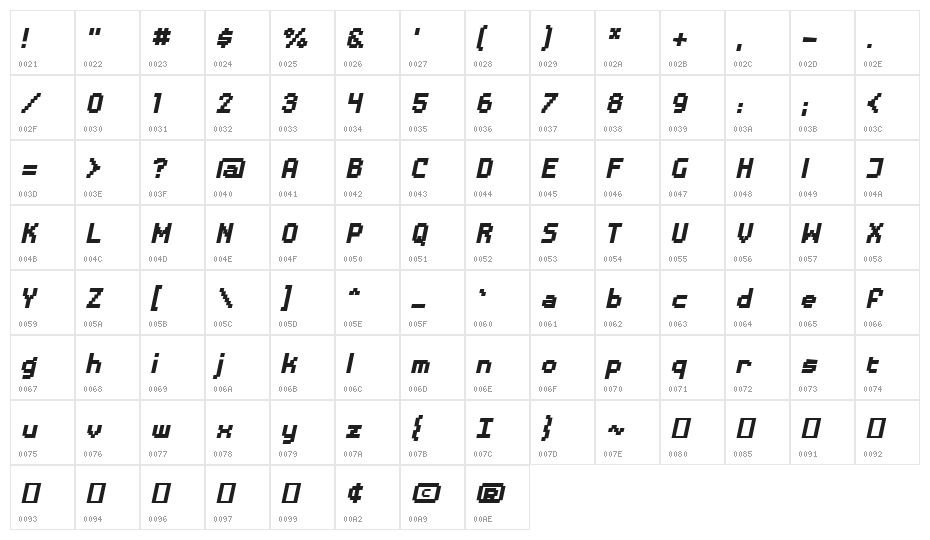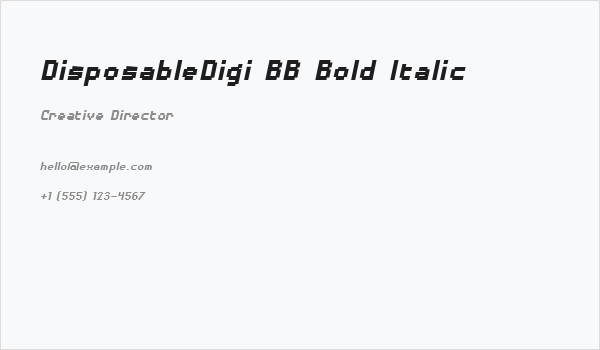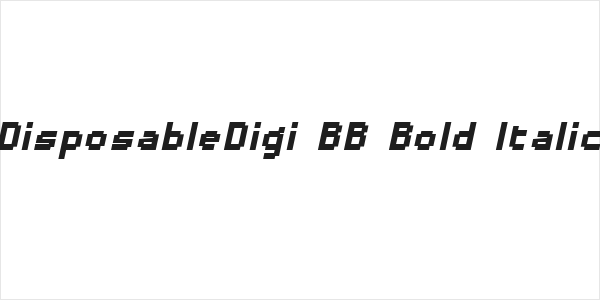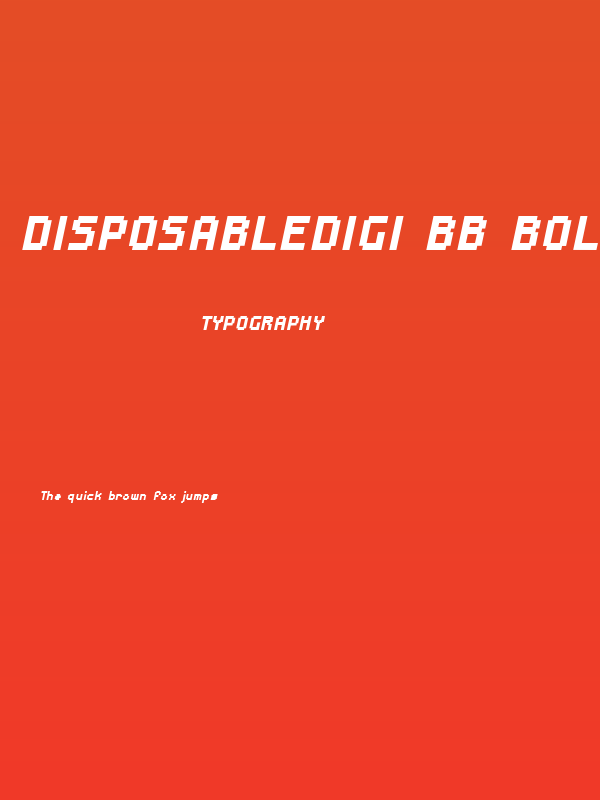
DisposableDigi BB Bold Italic Font
DisposableDigi BB Bold Italic Description
This font features a bold and italicized style with a distinct digital or pixelated appearance, reminiscent of early computer graphics or video game text. The characters are blocky and angular, with consistent stroke thickness throughout, giving it a uniform and structured look. The uppercase and lowercase letters maintain a cohesive design, while the numerals and special characters complement the overall aesthetic. The font's geometric nature makes it highly legible, even at smaller sizes, and its boldness ensures it stands out in any context.
Use CaseHeadlines, Logos, Digital displays
Proposed ProjectsIdeal for retro-themed designs, video game graphics, digital art projects, and technology-related branding.